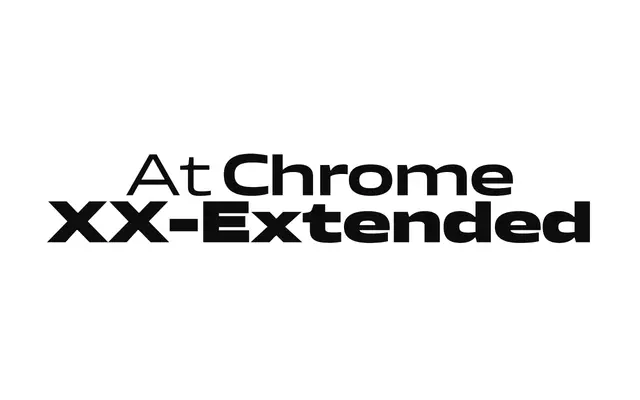
At Chrome XX-Extended
A sharp geometric sans in 18 styles, designed by Pedro Arilla and Julián Moncada for digital screen clarity at extended widths.
Part of the broader Chrome superfamily, this extended-width cut runs from Air to Super across nine weights, each with a matching italic. A dedicated Retina weight is optimised for high-density screens, and the family ships with variable font files alongside static formats. Eight stylistic sets allow individual letterform substitutions for characters including a, f, g and t, with a full suite of OpenType figure and fraction features supporting 279 languages across Latin Extended.
A sharp, modern sans-serif with geometric construction and clean stroke contrast, positioned explicitly for digital screen performance and technology-oriented applications.